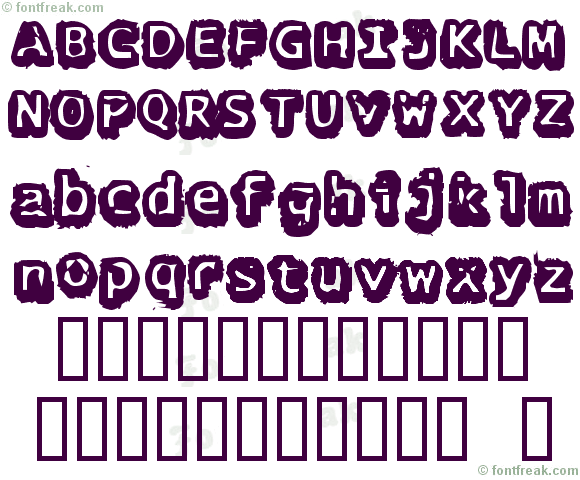
there goes the neighborhood
About there goes the neighborhood
The "there goes the neighborhood" font by Pennyzine is a distinctive display typeface that captures a playful and slightly rebellious spirit. This font falls into the decorative category, characterized by its quirky, irregular strokes that create a sense of casual charm. The stroke weight varies throughout the letters, providing a dynamic visual appeal, while the uneven edges contribute to its handmade feel. The spacing between characters is moderate, allowing for legibility without sacrificing style, making it ideal for eye-catching designs.
This font is particularly well-suited for a variety of creative applications. Its unique personality makes it a great choice for movie posters that aim to convey a fun, lighthearted vibe or for event flyers that require a touch of whimsy. Additionally, the "there goes the neighborhood" font can elevate restaurant menus, especially for eateries with an eclectic theme, by adding an informal yet engaging touch. It also works wonderfully for social media graphics and promotional materials targeting a younger audience. Graphic designers, small business owners, and content creators will find this font a valuable resource in their toolkit, as it can easily adapt to various branding needs.
What sets the "there goes the neighborhood" font apart is its ability to evoke a sense of community and nostalgia while maintaining a modern edge. The playful irregularities in its design invite curiosity and engagement, making it memorable for viewers. Whether used in digital or print formats, this font adds a unique flair to any project, making it a must-have for those looking to make a statement. Explore the creative potential of this font with a "there goes the neighborhood font free download" and let your projects reflect a bold, fun aesthetic.